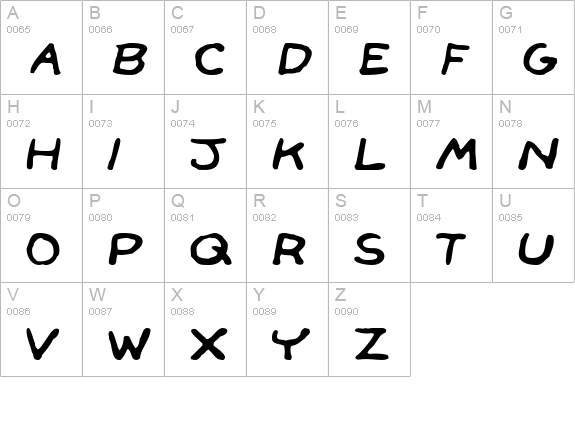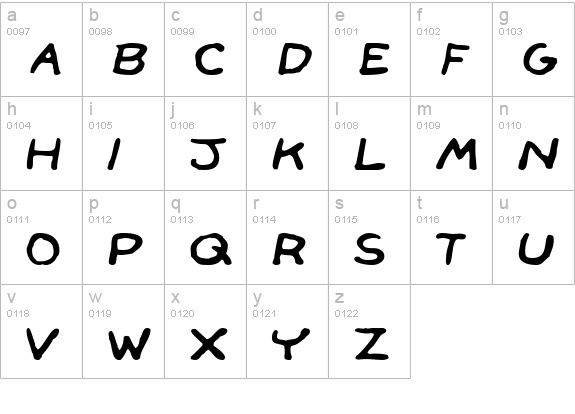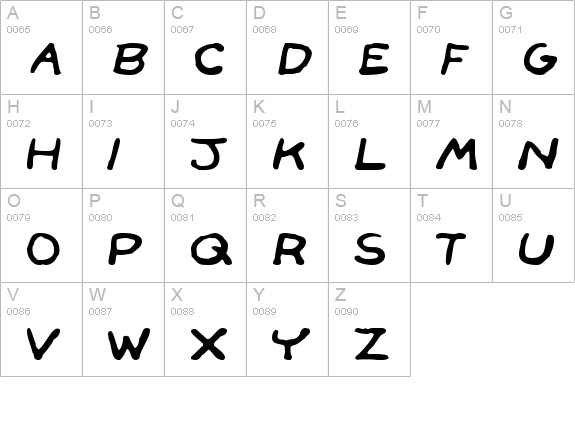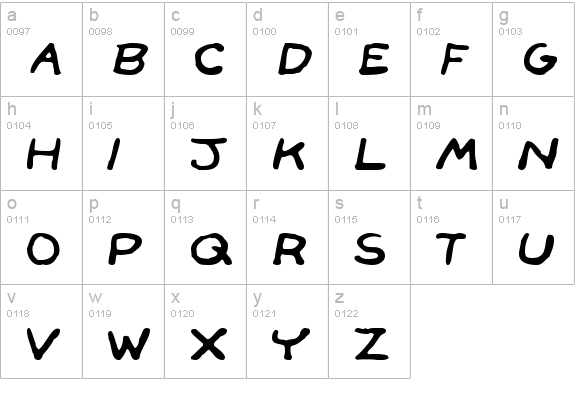
Face Front Font Details
Introducing Face Front, a captivating and versatile font that will undoubtedly make a lasting impression. With its sleek lines and modern design, this typeface effortlessly combines elegance and sophistication. The Face Front font exudes a sense of confidence and professionalism, making it perfect for a wide range of projects and creative endeavors. Created with meticulous attention to detail, this font offers a wide range of characters and glyphs, allowing for seamless integration into any design project. Whether you're working on a logo, website, or branding materials, Face Front will add a touch of uniqueness and style. What sets Face Front apart is not just its impeccable design, but also its availability as a free download. That's right, this remarkable font is freely accessible at FontsMarket.com. This means that you can easily obtain this font without any hassle or financial burden. It's a fantastic opportunity to enhance your design arsenal with a high-quality, professionally crafted font without breaking the bank. So why wait? Give your projects the edge they deserve with the Face Front font. Download it for free today at FontsMarket.com and unlock a world of creative possibilities. Elevate your designs to new heights and leave a lasting impression with this extraordinary font.